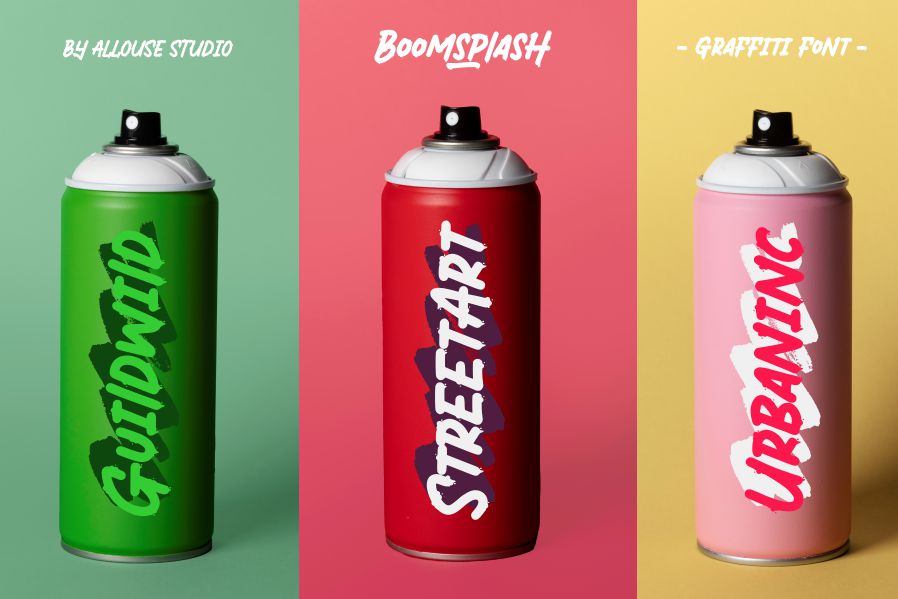
Boomsplash Font
Boomsplash Display Font
This is A Graffiti Font. Boomsplash is perfect for product packaging, branding project, megazine, social media, wedding, or just used to express words above the background.